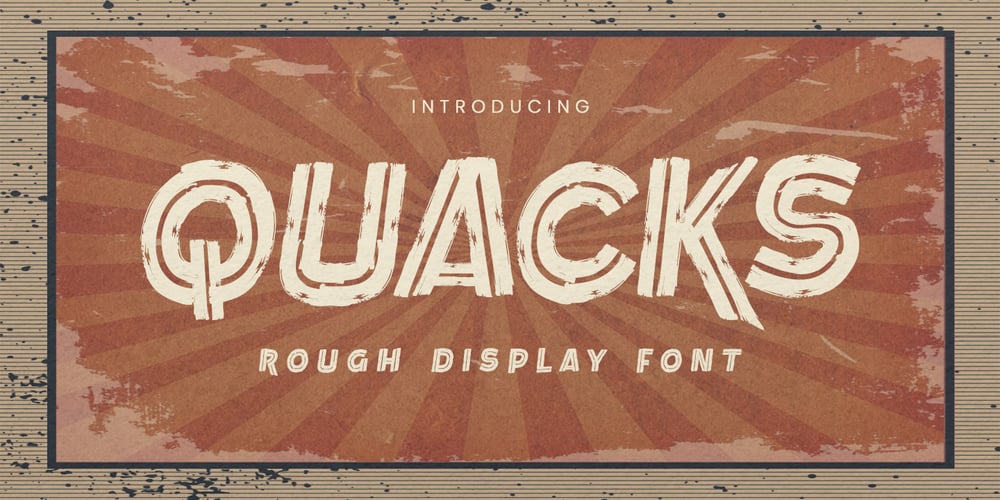
Quacks
Quacks font
Quacks Font Family was designed by Abdul Malik Wisnu, Anang Fibriyanto and published by Gassstype. Quacks contains 1 styles and family package options. Hello Everyone, introduce our new product Font QUACKS This Is Rough Display Font.This is a Textured Natural Style and classy style with a clear style and dramatic movement.This font QUACKS is great for your next creative project such as logos, printed quotes, invitations, cards,